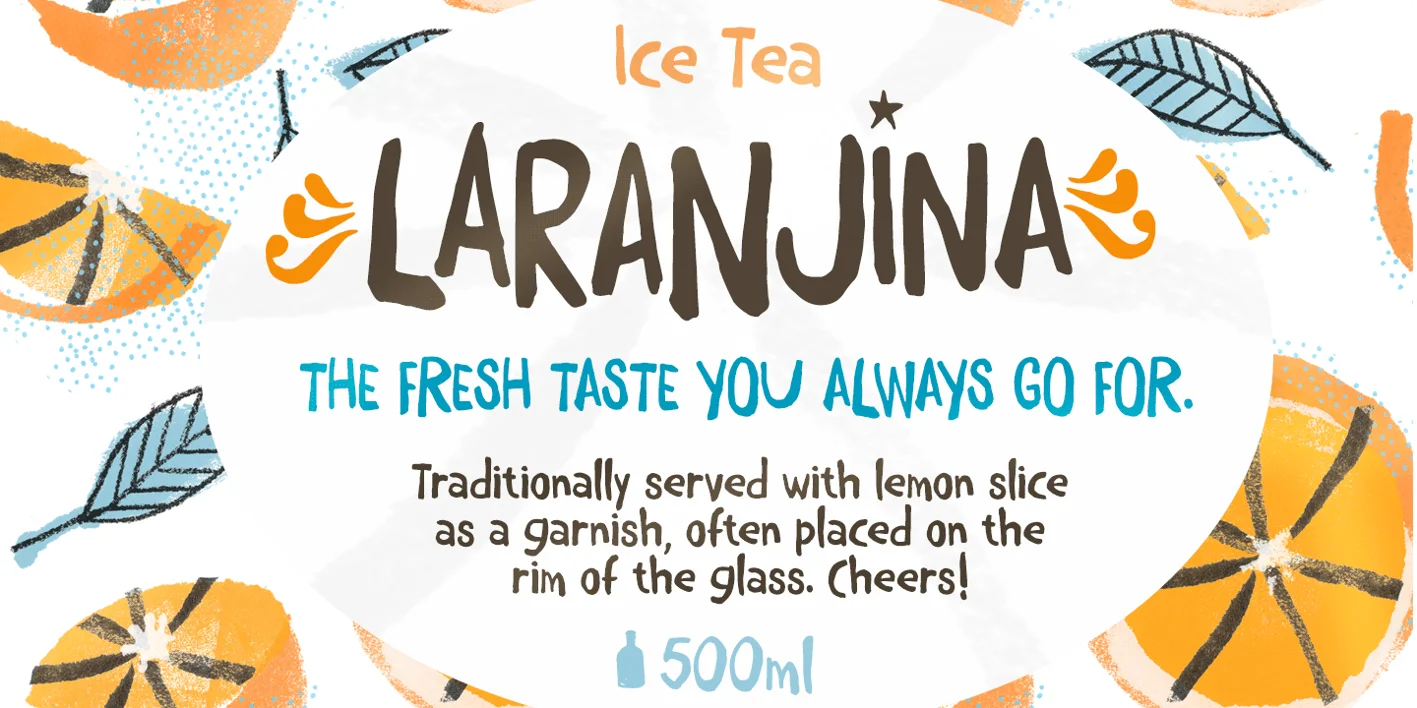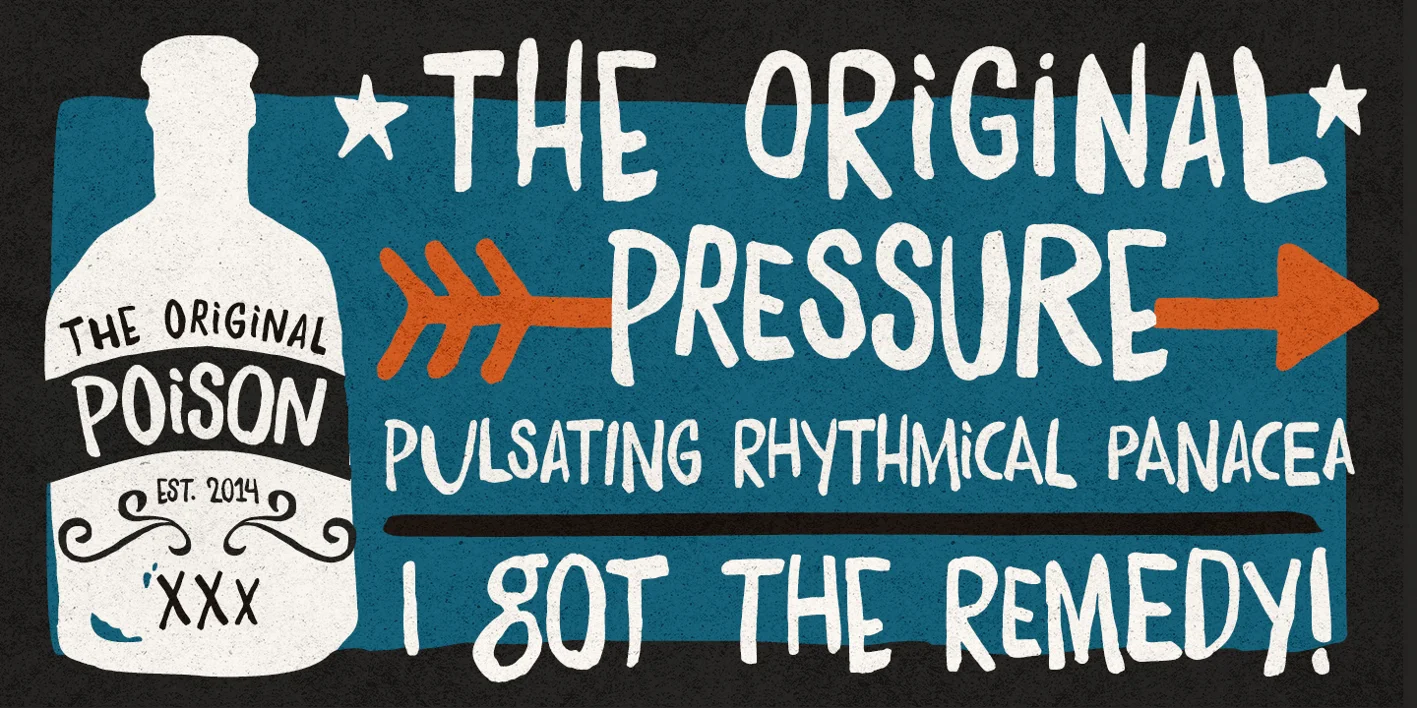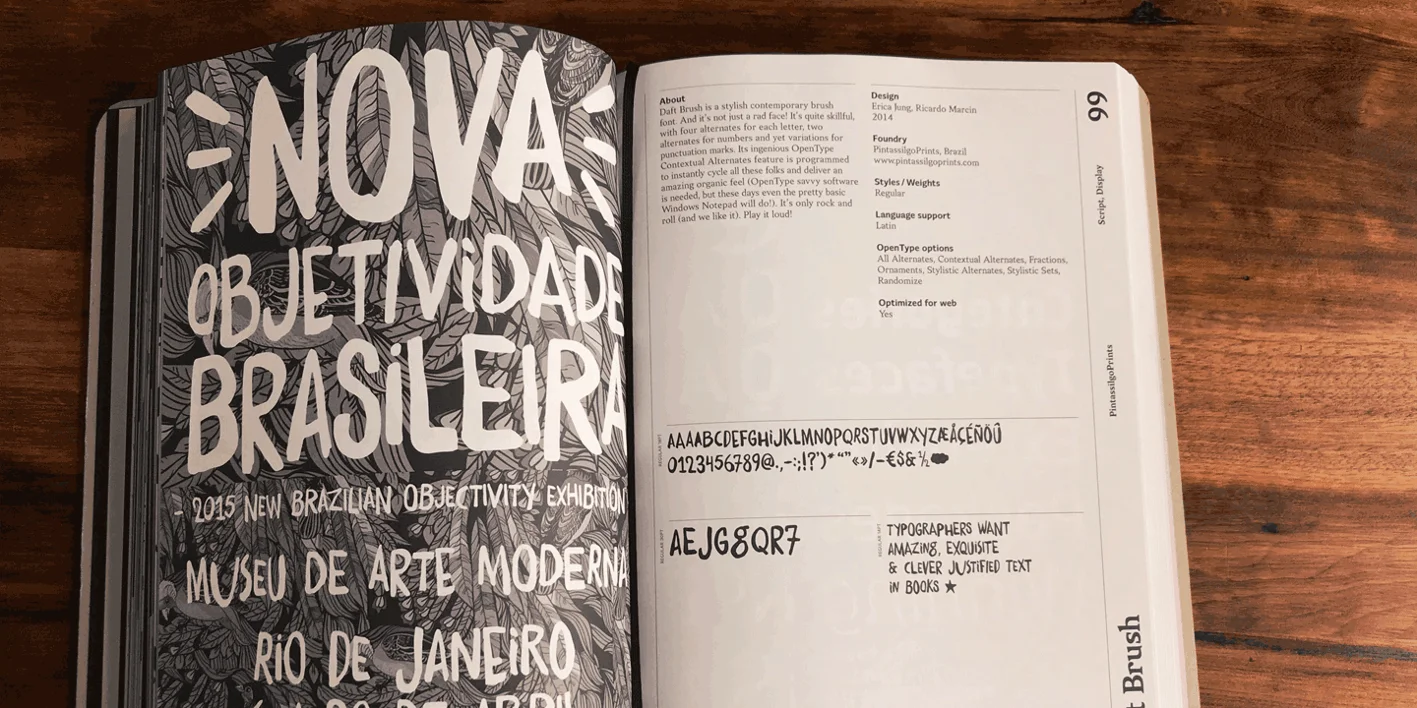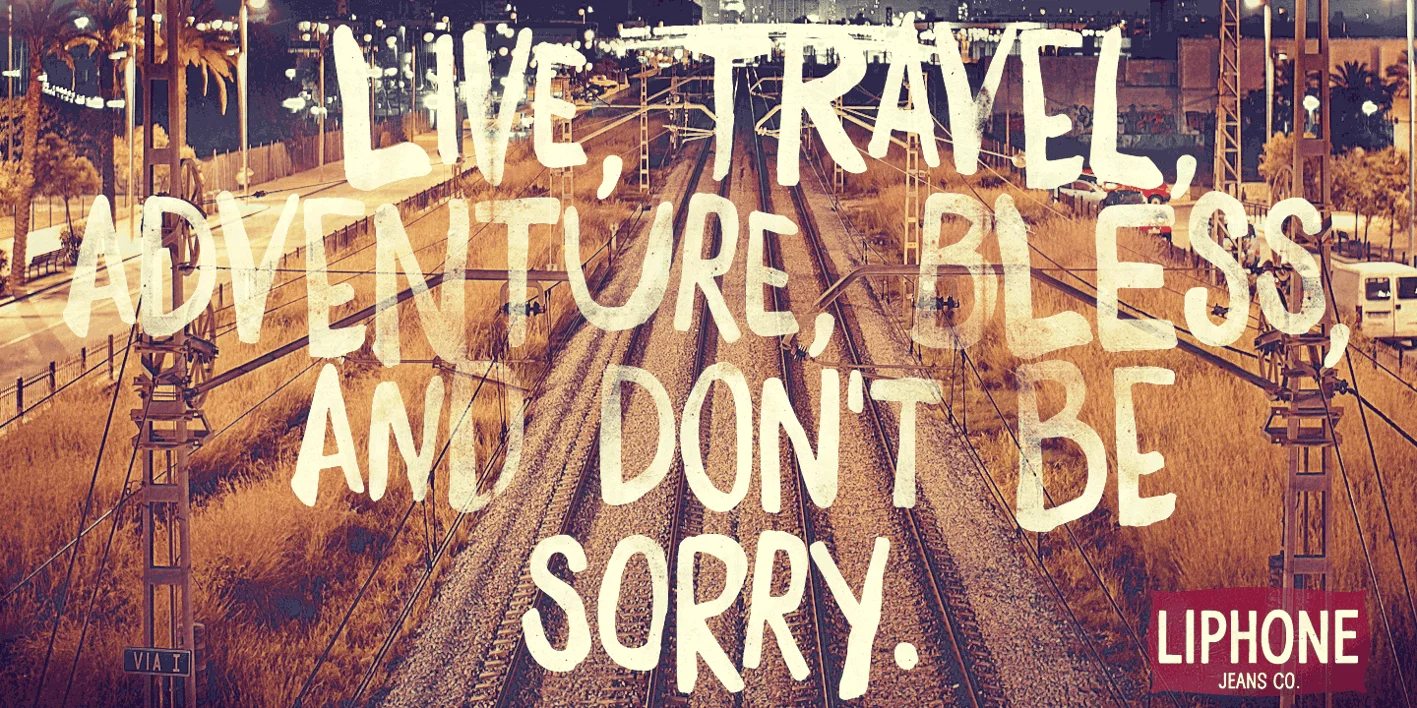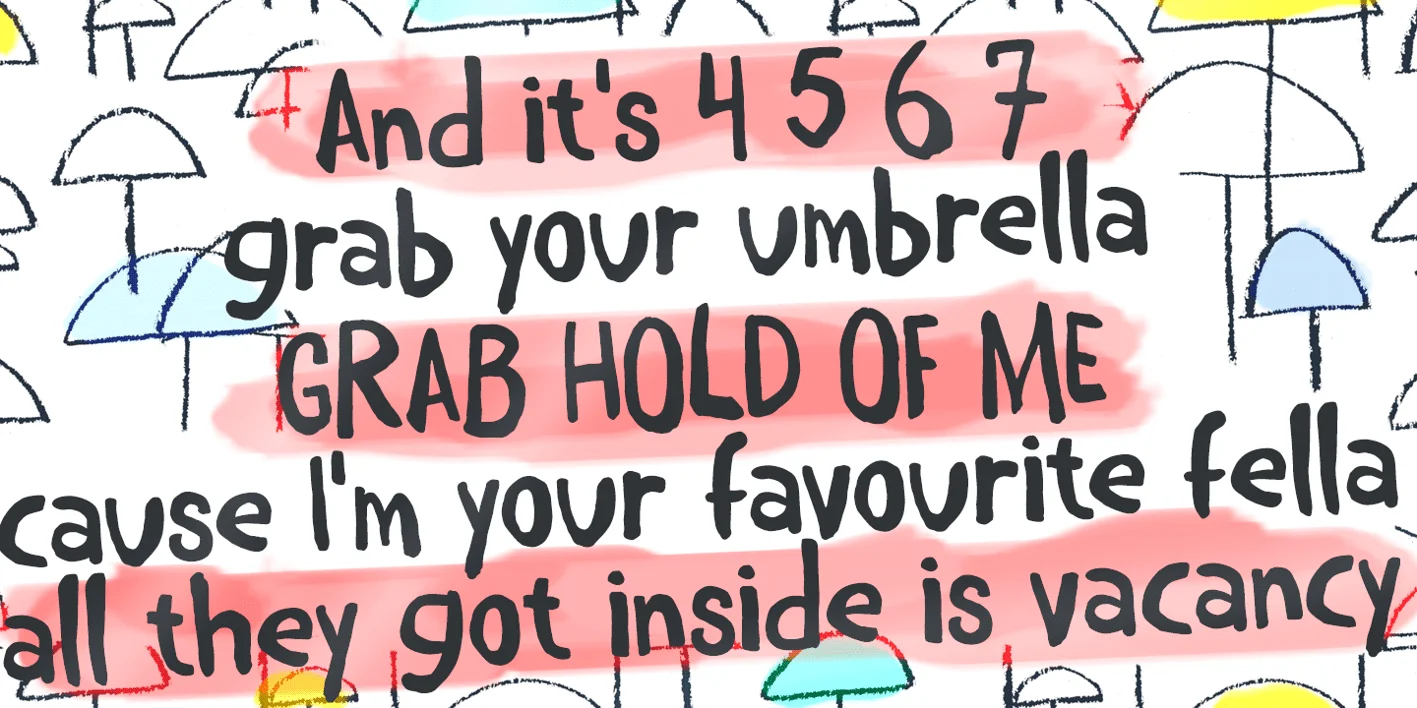
Daft Brush Font
There is a particular satisfaction in finding a typeface that delivers visual harmony and precise spacing without compromise. Daft Brush consistently provides it. The typeface brings a loose, expressive brush sensibility to a broad range of creative disciplines, with a confident voice that adapts to diverse briefs that holds up whether the work is print-first or screen-first.
In practice, Daft Brush proves particularly effective for packaging design, yoga studios, annual reports, poster creation, coffee shop menus. Designers reaching for it find that the type decisions feel resolved rather than laboured — a useful quality when client timelines are tight.
The range of applications extends to lifestyle brands, wellness brands, environmental graphics, travel blogs. That breadth is deliberate: the proportions and spacing were stress-tested across a wide range of mock briefs before the typeface was finalised.
Ink traps at stroke joins simulate the natural pooling of paint or ink, adding textural depth without the need for artificial distressing. The variation in stroke width across individual letterforms gives compositions a liveliness that purely digital type often lacks.
At smaller sizes the design retains its character without becoming cluttered. This resilience across scales makes Daft Brush equally suitable for a business card and a billboard — a useful property when assets must scale across a campaign.
Art directors commissioning type-led campaigns find Daft Brush a reliable choice for projects that demand both personality and restraint. The design avoids the self-conscious quirkiness that dates quickly, settling instead for considered distinctiveness that holds up over time.